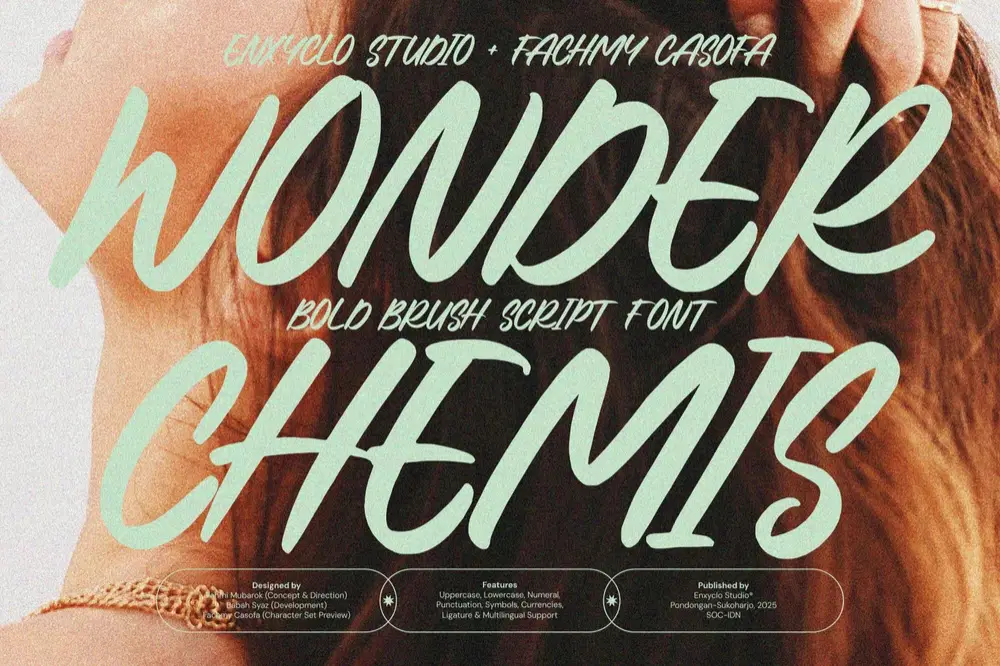
Wonder Chemis is a bold aesthetic brush script font crafted with unique strokes that bring artistry and movement to your typography. Each letter is drawn with expressive brush energy, giving the font a handcrafted visual style that feels both creative and effortlessly modern. Its dynamic curves, textured strokes, and stylish script flow make Wonder Chemis a standout choice for creative agency projects, branding visuals, and bold design statements. Whether you're building a high-impact logo, designing a stylish poster, or crafting eye-catching social media graphics, this font delivers a unique visual character that elevates any concept. Perfect for designers who want to blend creativity, modern aesthetics, and expressive brush script style, Wonder Chemis adds personality and flair to every layout.
FEATURE
Uppercase letters
Lowercase letters
Punctuation marks
Symbol set
Currency symbols
PERFECT FOR
Creative agency branding
Stylish logo and packaging design
Aesthetic posters and editorial layouts
Social media visuals and promotional content
Bold headline and title design
Fashion and lifestyle branding
Handcrafted product labels
Signature-style branding
Trendy digital content and thumbnails